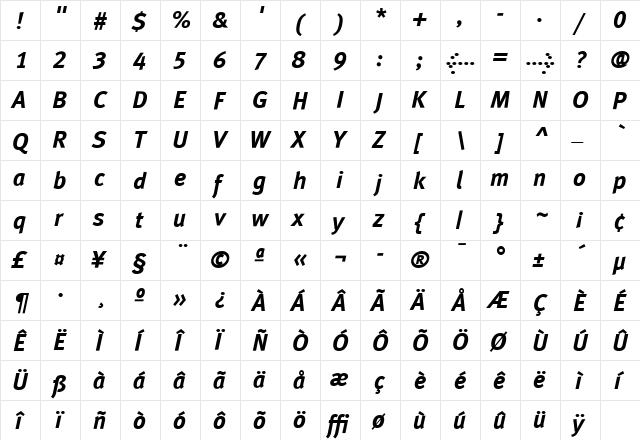
MetaPlusLining Bold Italic
Design Context for MetaPlusLining Typeface
MetaPlusLining takes a measured approach to typography — its balanced proportions and neutral character make it a reliable workhorse for both digital and print work. The slanted form adds forward momentum and visual energy. Its bold stroke weight gives it real presence on the page.
Pro Tip: Try MetaPlusLining for annotation and caption copy alongside an upright companion — the contrast in angle creates a dynamic but ordered typographic system.